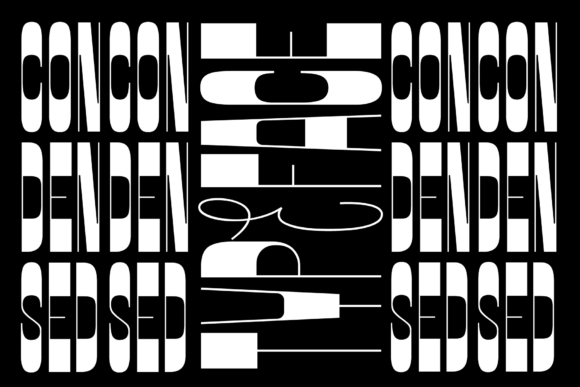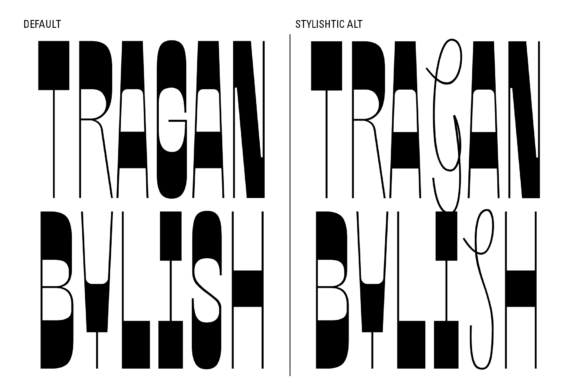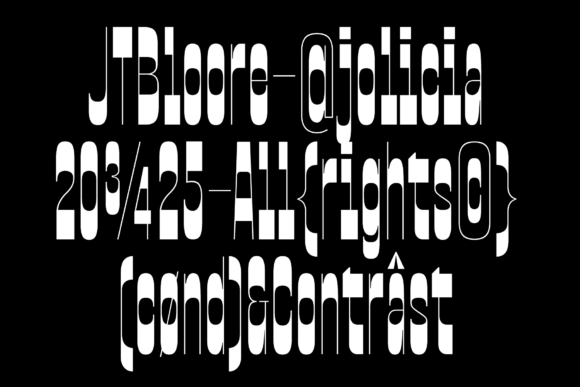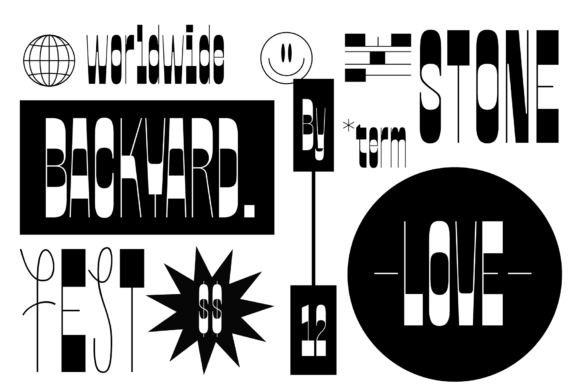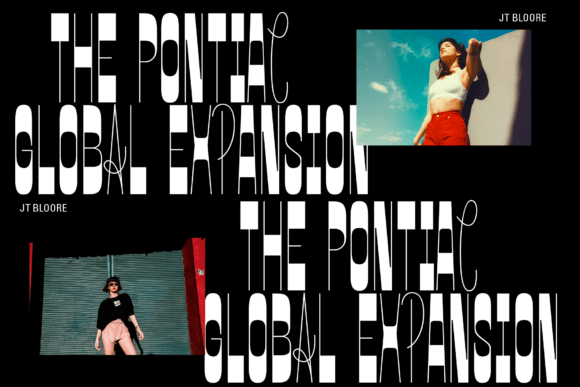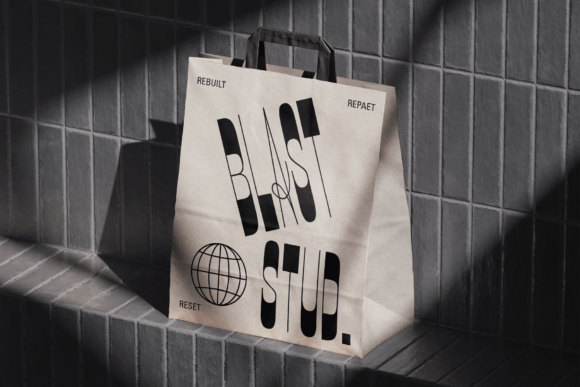
The Power of Bloore Font: A Designer’s Dream Come True
I’ll never forget the time I was working on a project for a fashion client, and I needed a font that would make their brand stand out. I had tried countless fonts, but none seemed to have the right amount of punch. That’s when I stumbled upon the Bloore font. Its high-contrast, reverse display sans-serif design immediately caught my eye, and I knew I had found the perfect fit.
The Bloore font is designed with a condensed structure for maximum visual impact. Its sharp vertical tension and narrow proportions make it highly effective for standout headings, bold branding, and expressive editorial layouts. In this article, I’ll share my experience with the Bloore font, its features, and how to use it to take your designs to the next level.
An Honest Review of Bloore Font
- ✨ High-contrast design: The Bloore font’s dramatic, oversized characters with thick and thin strokes inverted create a captivating effect.
- ✅ Condensed structure: Its narrow proportions make it perfect for creating standout headings and bold branding.
- 🔥 Expressive editorial layouts: The Bloore font is ideal for creating eye-catching magazine spreads, music artwork, and event posters.
While the Bloore font is exceptional, there are a few things to consider:
- ⚠️ Legibility at small sizes: Due to its high-contrast design and condensed structure, the Bloore font may not be suitable for body text or small font sizes.
- 🤔 Limited use cases: The Bloore font is best used for display purposes, and its bold style may not be suitable for every design project.
- Explore the OpenType features of the Bloore font, such as stylistic alternates and glyphs, to add more creativity to your design.
The Backstory of Bloore Font
The Bloore font was designed with the goal of creating a bold and eye-catching display font. Its designer, inspired by the high-contrast designs of the past, aimed to create a font that would make a statement. With its condensed structure and sharp vertical tension, the Bloore font is perfect for designers who want to create bold and expressive designs.
Q: What is the Bloore font best used for?
A: The Bloore font is best used for display purposes, such as creating standout headings, bold branding, and expressive editorial layouts.
Q: Is the Bloore font suitable for body text?
A: No, the Bloore font is not suitable for body text due to its high-contrast design and condensed structure.
Q: Is the Bloore font available in different weights?
A: The Bloore font is available in a single weight, but its bold design makes it perfect for creating striking headings and titles.